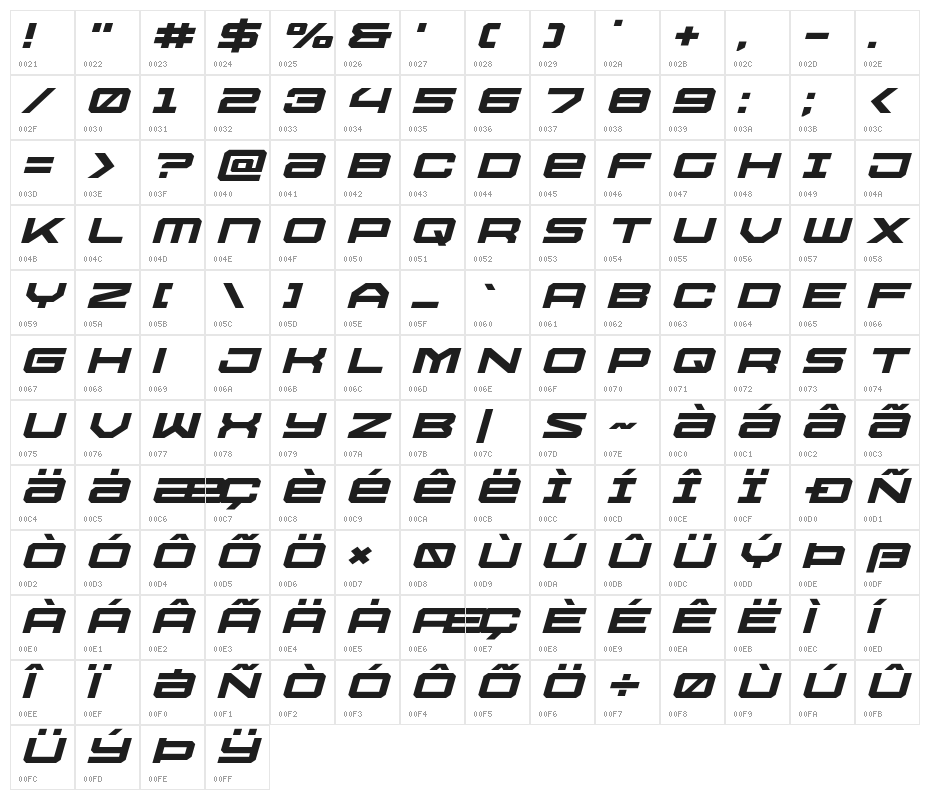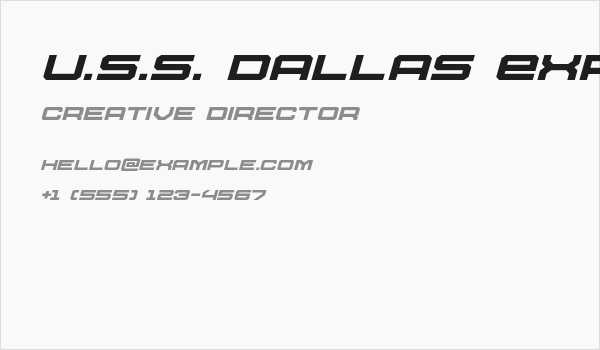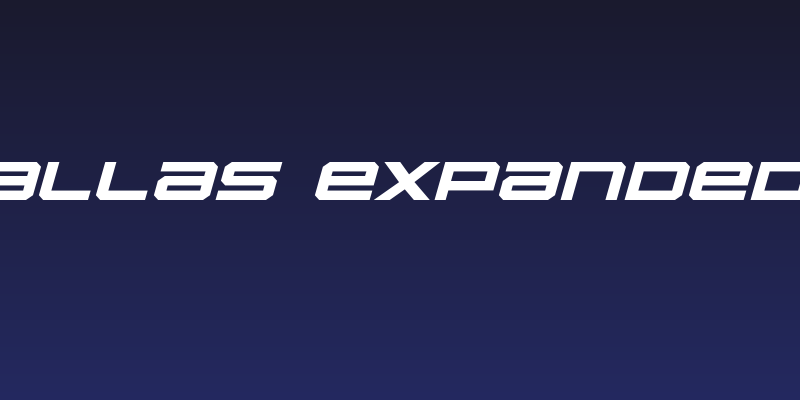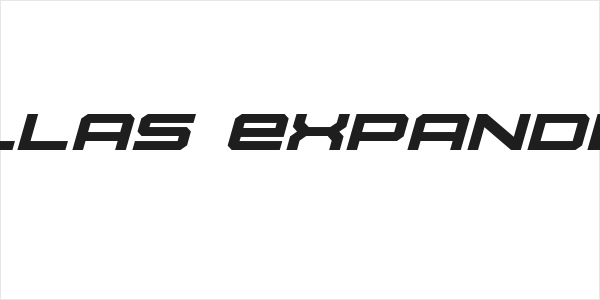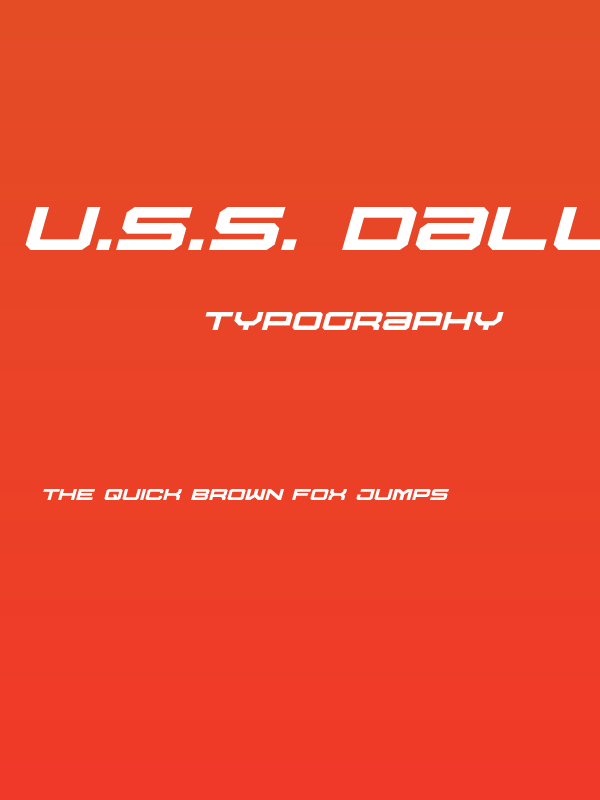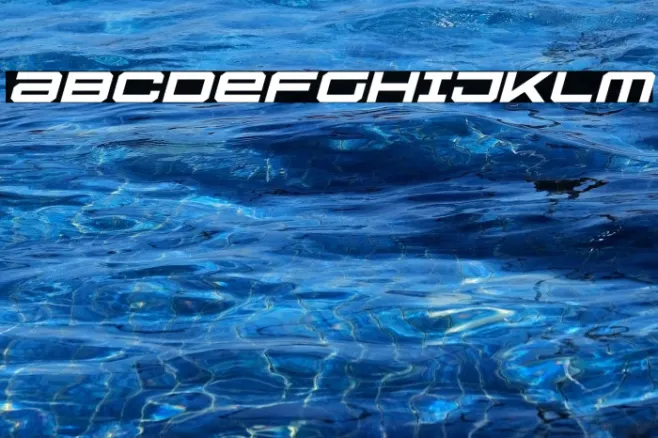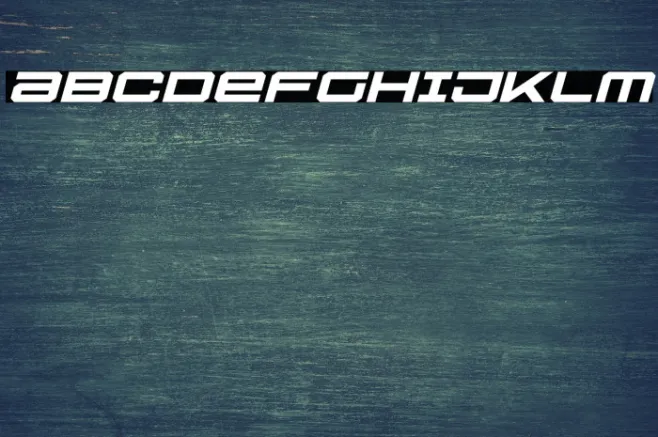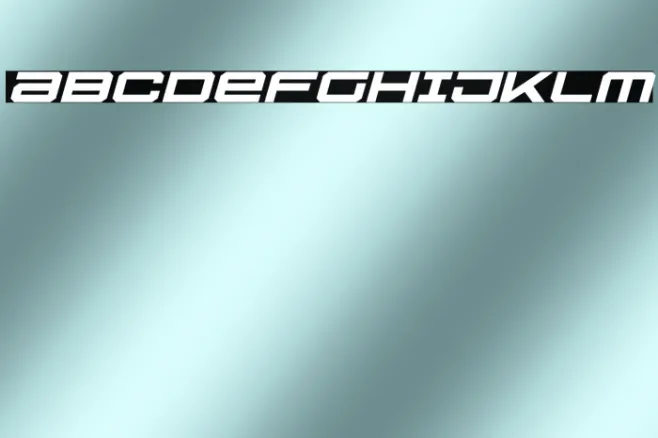
U.S.S. Dallas Expanded Italic Font
U.S.S. Dallas Expanded Italic Description
This font features a bold and dynamic design with an italicized slant, giving it a sense of motion and speed. The characters are expanded, providing a wide stance that enhances readability while maintaining a futuristic and sleek appearance. The sharp angles and clean lines contribute to its modern aesthetic, making it suitable for projects that require a strong and impactful visual presence. The uniform stroke width across all characters ensures consistency, while the expanded width allows for a spacious and open feel. This font is ideal for use in contexts where a bold statement is needed, such as in technology or automotive branding.
| Proposed Projects | Ideal for technology branding, automotive designs, sports team logos, and futuristic-themed projects. |